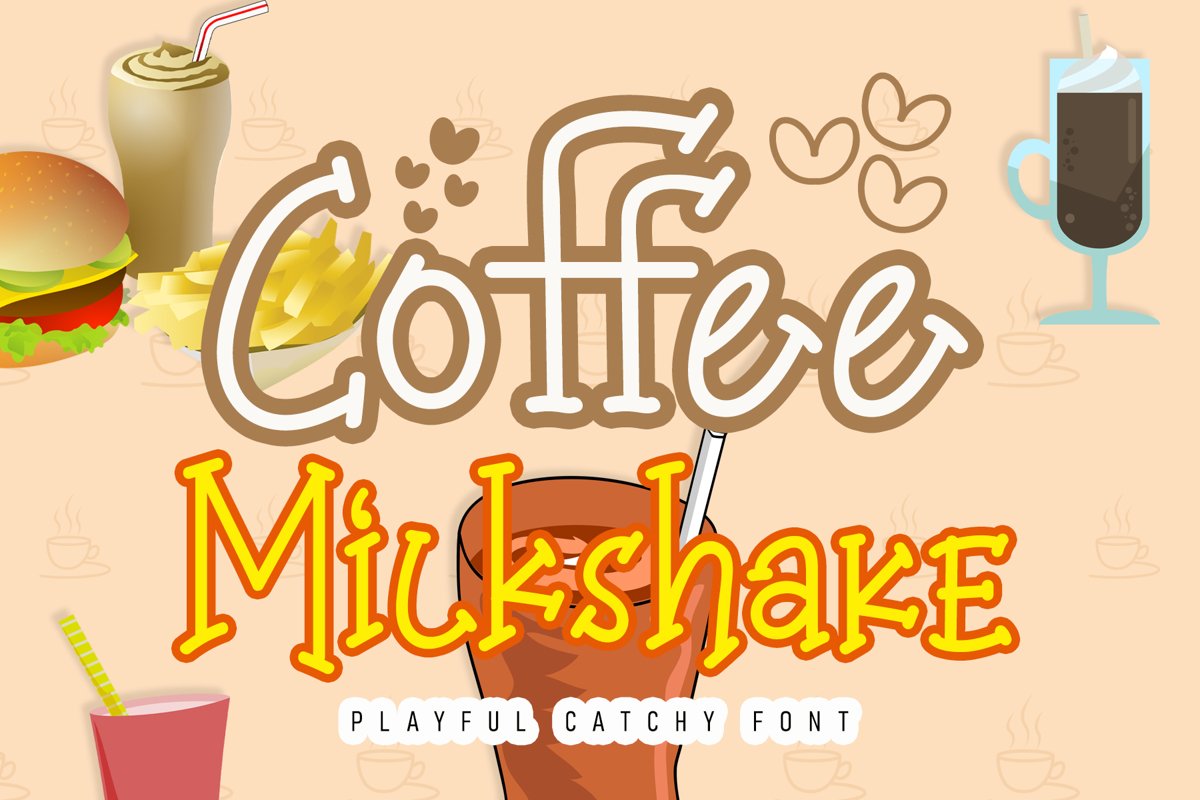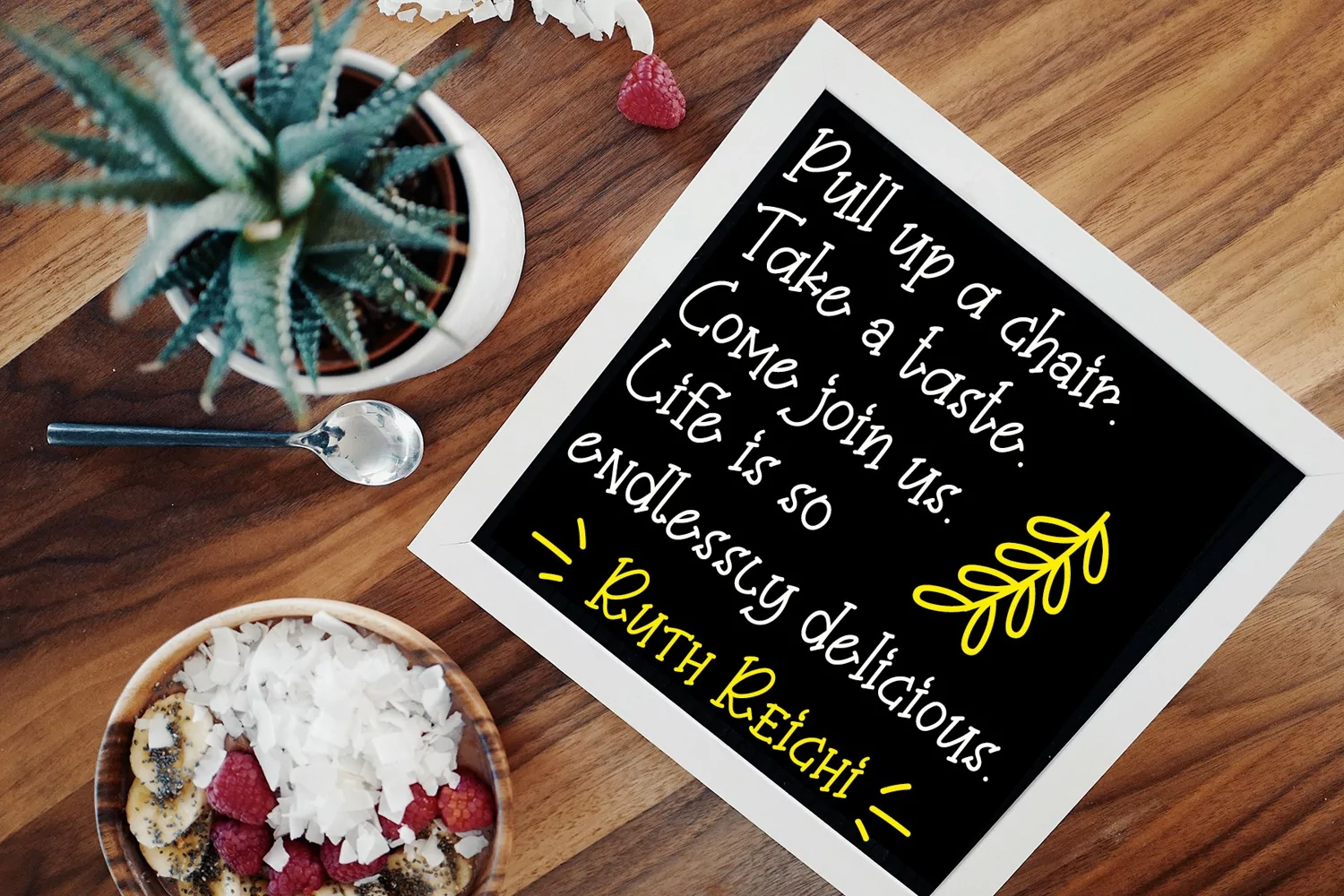
Coffee Milkshake - Playful Monoline Serif
Coffee Milkshake is quirky sweet and playful font. It will give happy and bright vibe into your project.
• Lots of Glyphs
• PUA-Encoded for additional cute symbols
• Multilingual glyphs.